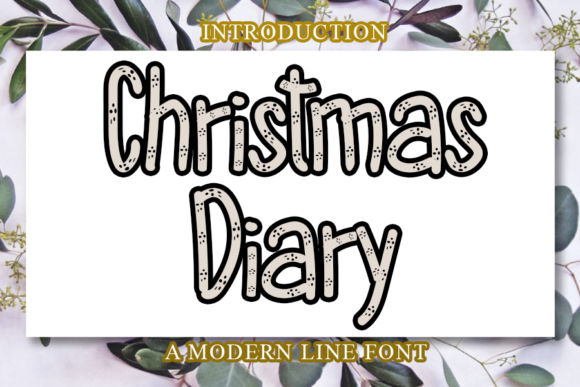
Unleash the magic of Christmas with Christmas Diary Font – your ultimate companion for creating captivating designs that resonate with the spirit of the season! Enter a world where imagination knows no bounds, where your words dance with a touch of elegance and joy. Let Christmas Diary Font be your muse, transforming your projects into masterpieces.
With its bold and effervescent style, Christmas Diary Font brings a festive flair to any project. Its playful curves and delightful details add a dash of whimsy, ensuring your designs stand out from the crowd. Whether you're crafting holiday greeting cards, designing social media posts, or creating eye-catching logos, Christmas Diary Font will add a touch of enchantment that captures the true essence of the season.
Experience the versatility of Christmas Diary Font as it effortlessly blends with your creative vision. From heartwarming Christmas tales to whimsical invitations, this font adapts effortlessly to every project, bringing a unique charm to your designs. Its ability to strike a balance between playfulness and sophistication makes it the perfect choice for a wide range of projects.
Immerse yourself in the beauty of Christmas Diary Font, a creation by merge354. Each character is carefully crafted to convey the warmth and wonder of the holiday season. The font's unique design makes it legible and visually appealing, ensuring your designs captivate your audience. So, let Christmas Diary Font be your creative partner, guiding you towards designs that sparkle like the morning dew on a crisp winter morning.